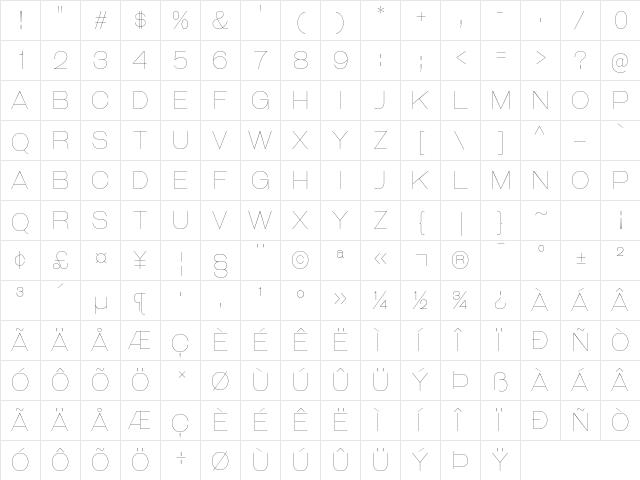
Galderglynn Titling UltraLight
Design Context for Galderglynn Titling Typeface
Galderglynn Titling offers clean, dependable letterforms without strong stylistic allegiance, making it a practical choice for designers who need flexibility. The delicate stroke weight brings airiness and refinement to layouts.